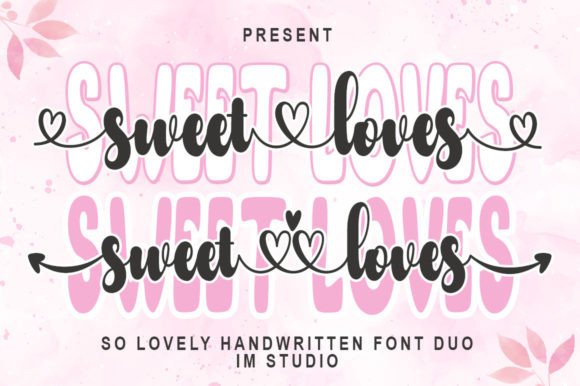
Adorn your designs with a touch of elegance and charm, introducing the Sweet Loves Duo Font, a captivating creation from IM Studio. This exquisite duo, comprising a graceful script and a sleek sans serif, is a match made in design heaven. Its versatility knows no bounds, extending from heartfelt greeting cards to bold headlines, transforming your creations into visual masterpieces.
Picture this: a wedding invitation adorned with the Sweet Loves Duo, its graceful script swirling like a love letter, evoking a sense of timeless romance. Or, envision a fashion magazine featuring headlines set in the sleek sans serif, exuding an aura of sophistication and grace. The possibilities are endless, limited only by your imagination.
With the Sweet Loves Duo, you hold the key to unlocking a world of design enchantment. Its PUA encoding grants you effortless access to an array of stunning glyphs and ligatures, empowering you to infuse your projects with a touch of artistic flair. Say goodbye to monotonous typography and embrace the realm of captivating designs, where every letter tells a tale of love and elegance.
Whether you're a seasoned designer seeking to elevate your craft or a creative enthusiast embarking on a design journey, the Sweet Loves Duo is your perfect companion. Its user-friendly nature welcomes designers of all skill levels, making it an ideal choice for both personal and professional projects.
So, dive into the world of the Sweet Loves Duo and unleash your creativity. Let your designs blossom with romance, sophistication, and a touch of whimsy. Embrace the beauty of this font duo and watch your projects transform into captivating works of art.